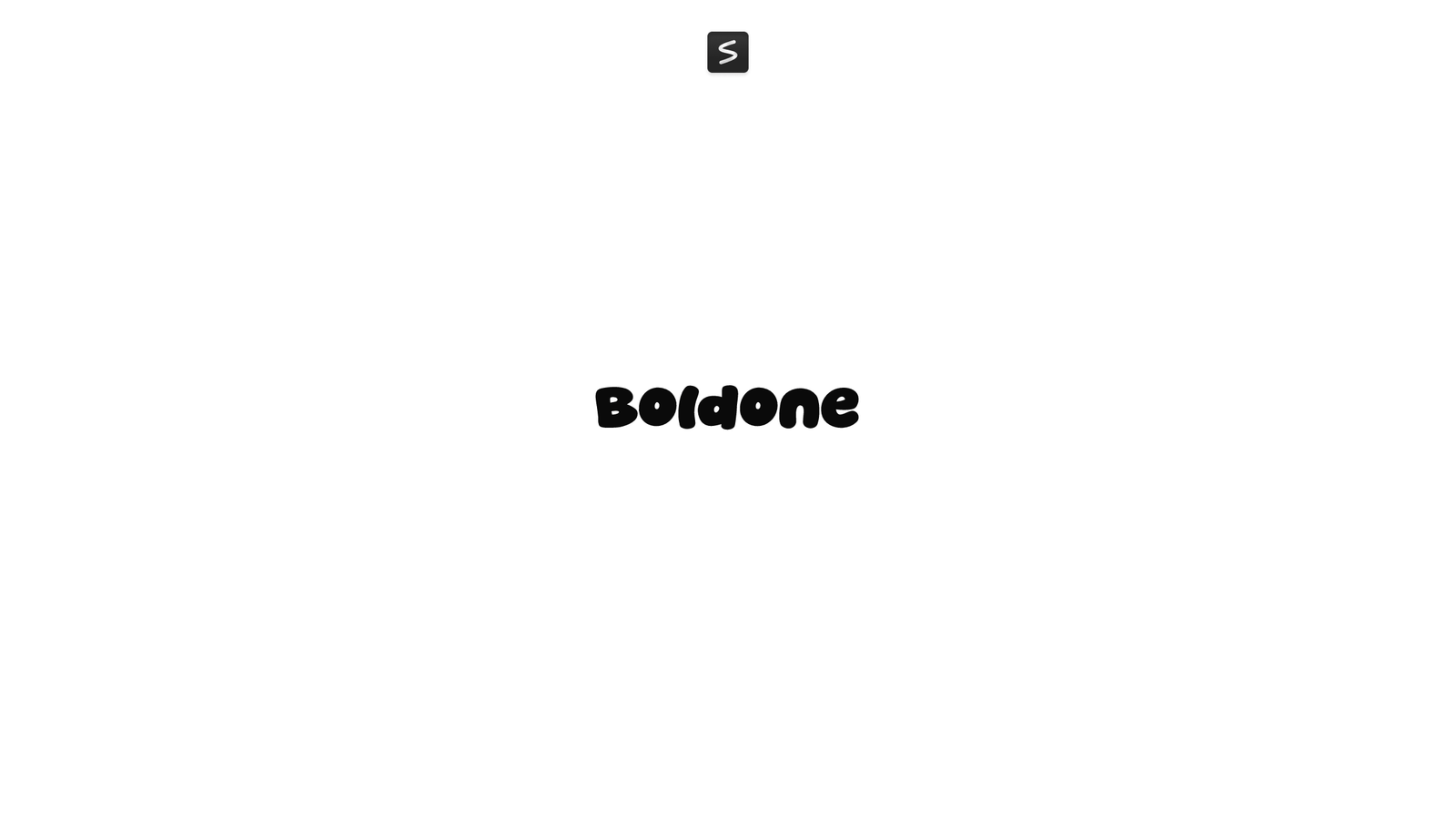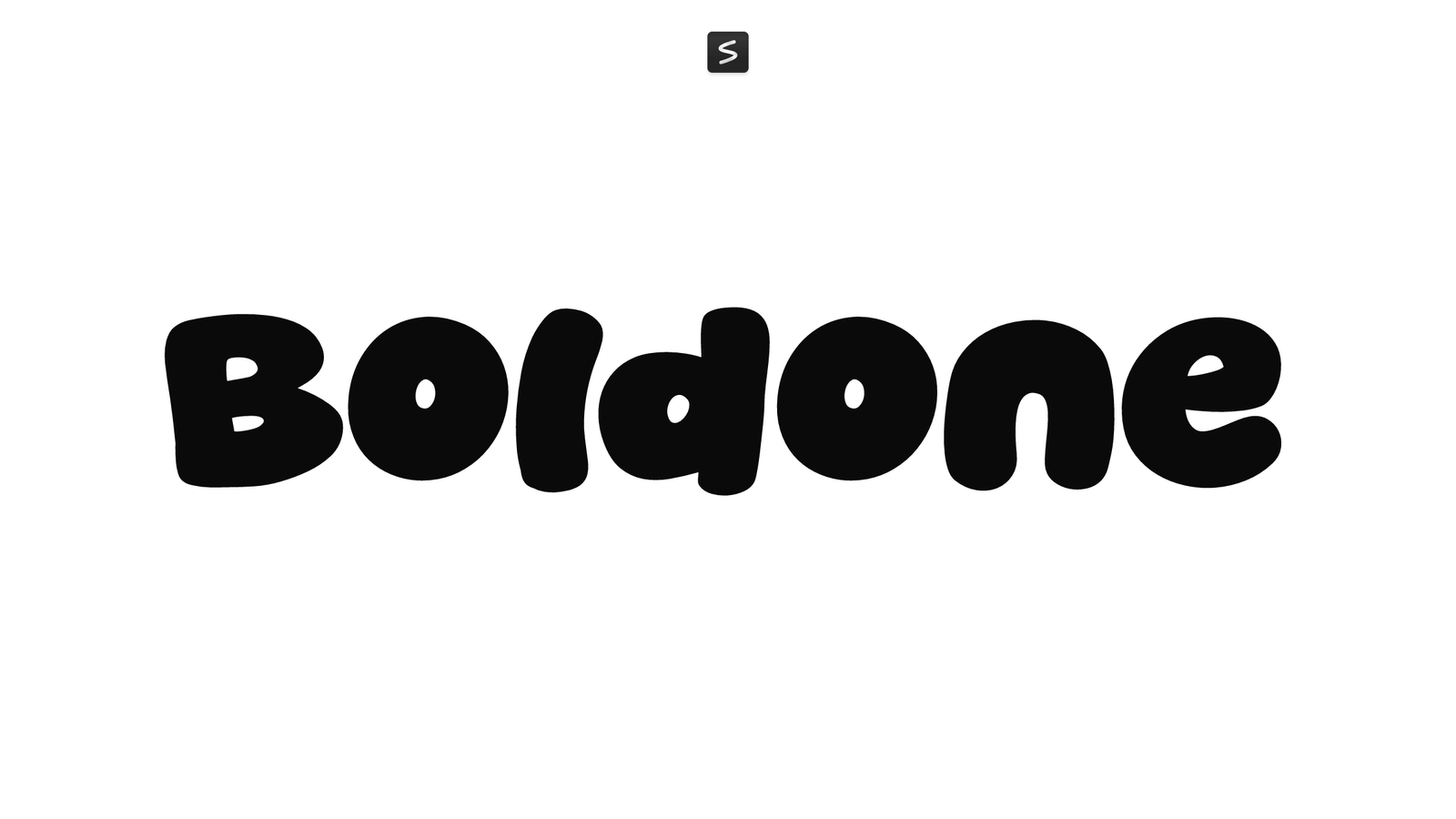
Boldone is a bold, rounded sans-serif font by Khurasan™ with soft edges and generous letterforms that feel friendly and approachable. Its cartoonish character makes it work well for designs that need warmth and informal charm, from packaging to social media graphics to children’s books.
The rounded strokes and open counters give Boldone an accessible, easy-to-read quality that works across sizes. It avoids looking precious or overly stylized, instead settling into a middle ground between playful and straightforward. This makes it useful for both headlines and body text in projects where a bit of personality helps.
Use it for posters, logos, branding, greeting cards, album covers, or any project where you want the text to feel inviting rather than formal. Boldone is free for personal and commercial use.